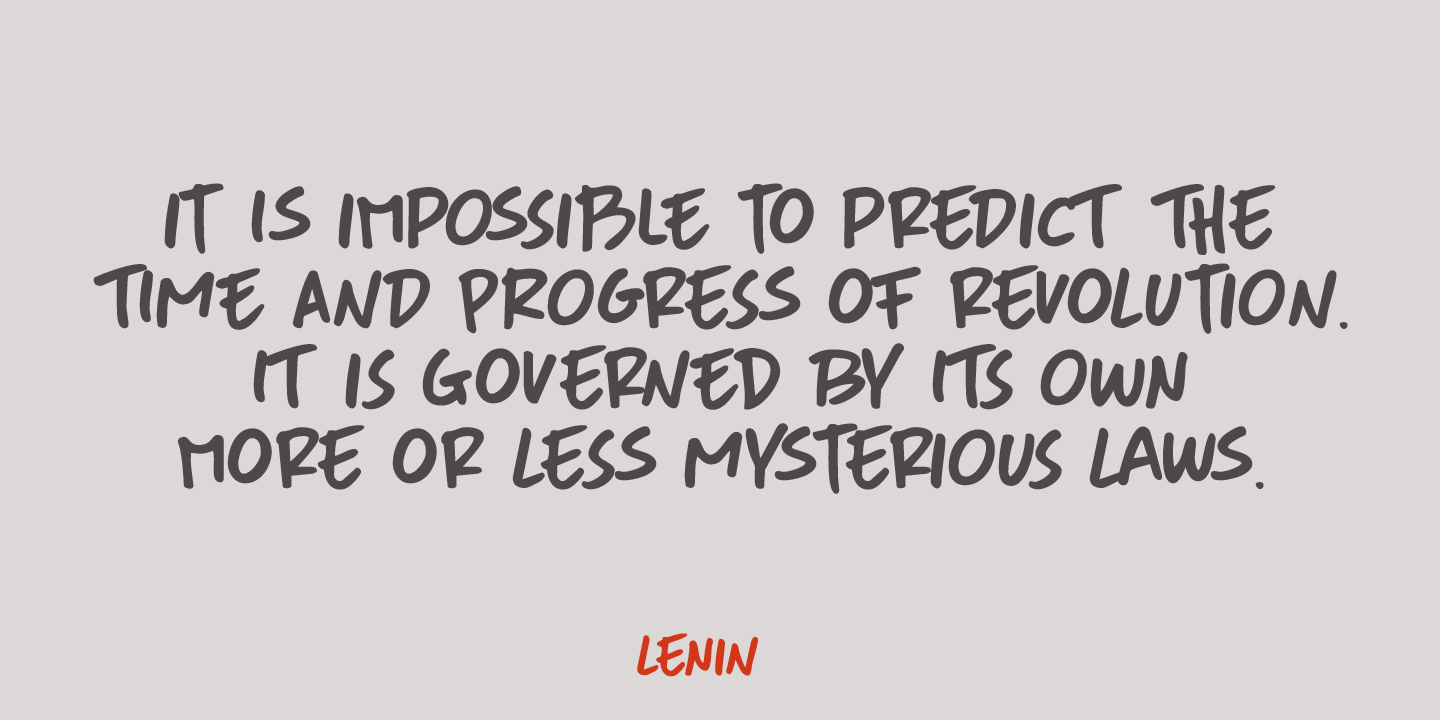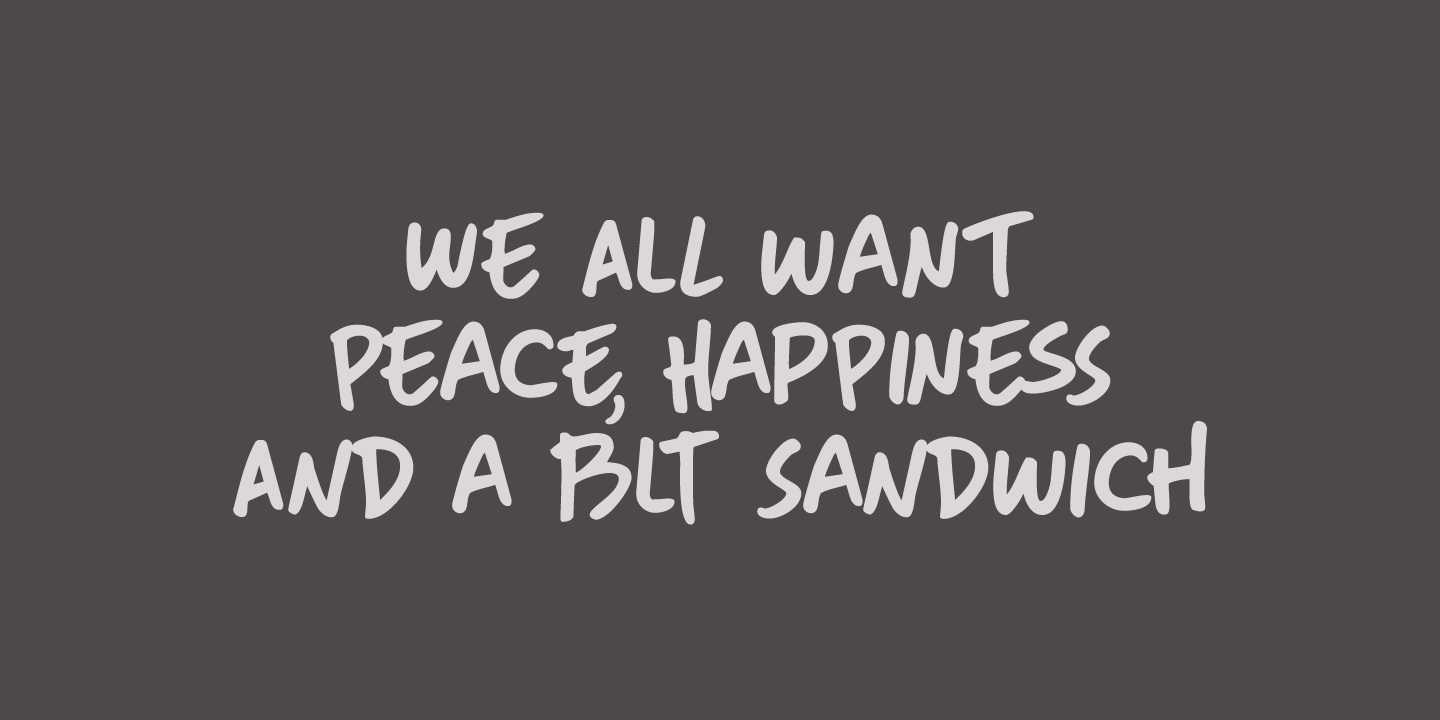
About More Or Less
More Or Less was made with a permanent marker pen on thin Japanese paper. It is a handwritten note-style font with an uneven baseline and zippy glyphs. Comes with bells & whistles and a whole bunch of diacritics.